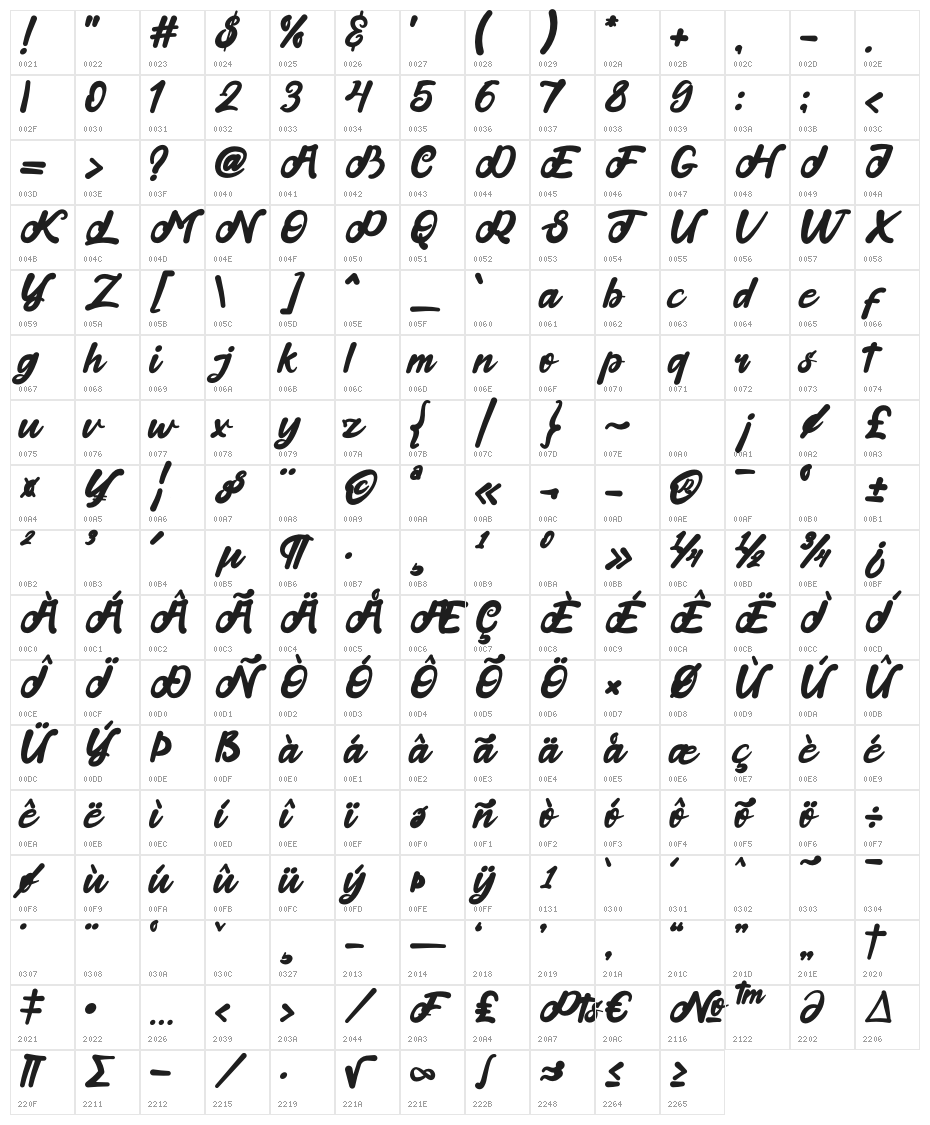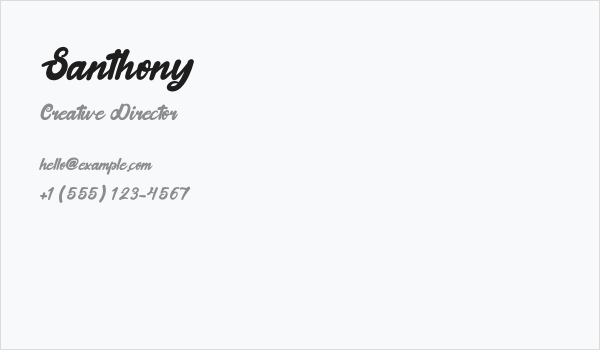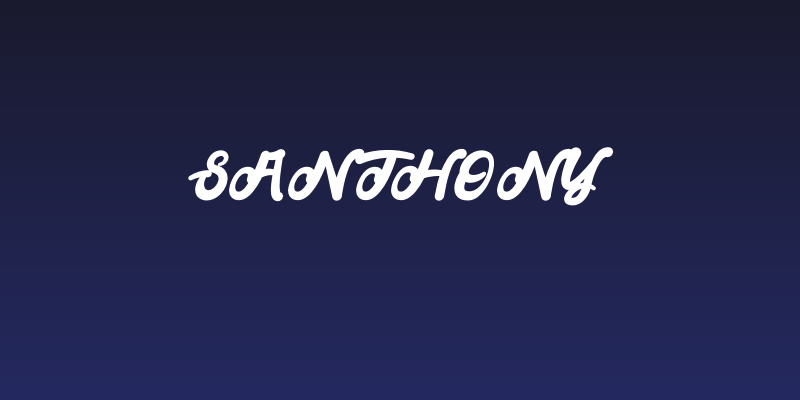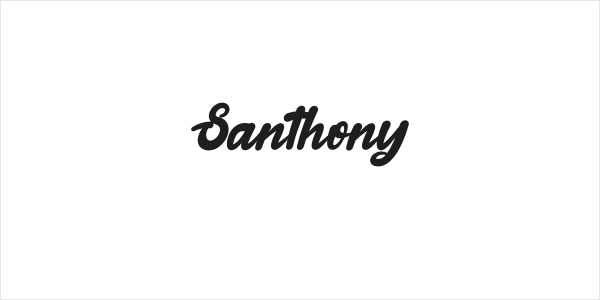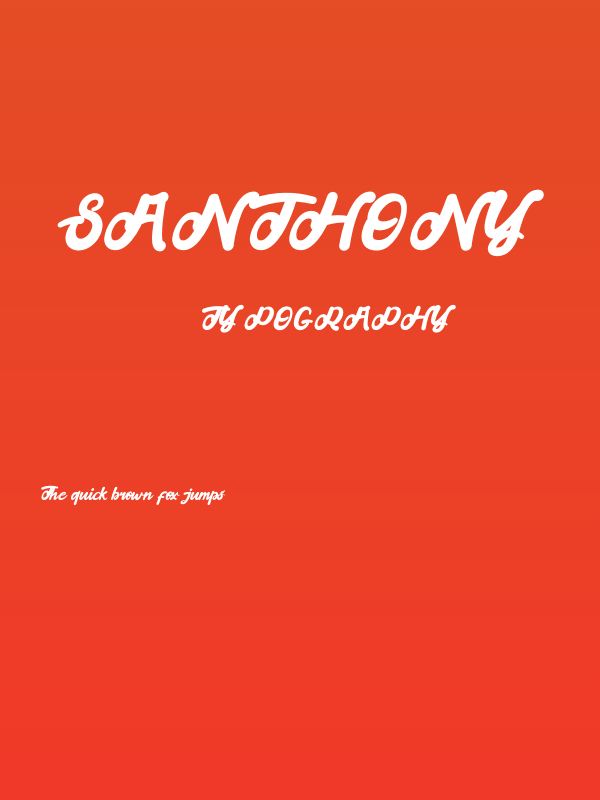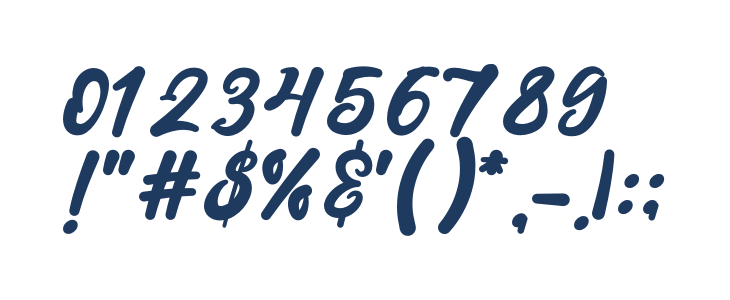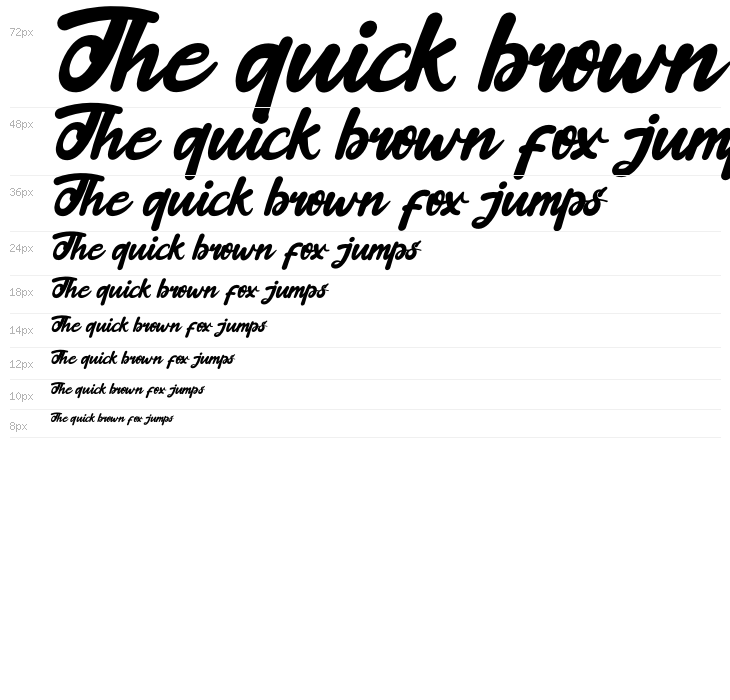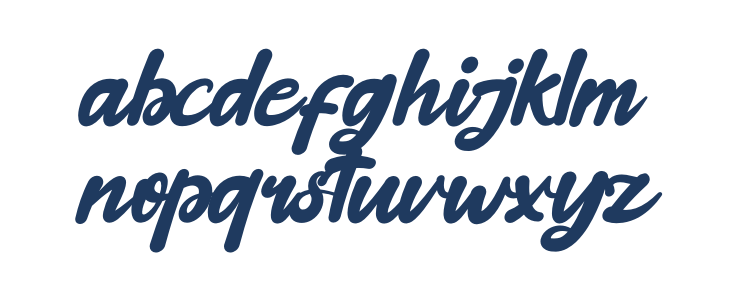
Santhony Font
Santhony Description
This font exhibits a bold, cursive style with a playful and dynamic flow. The uppercase letters are characterized by their looping, interconnected strokes, giving them a sense of movement and energy. The lowercase letters maintain this fluidity, with rounded forms and consistent stroke thickness. Numbers and special characters follow the same stylistic approach, ensuring uniformity across all glyphs. The overall appearance is both modern and expressive, making it suitable for projects that require a touch of personality and flair.
| Proposed Projects | Ideal for branding, invitations, greeting cards, and creative projects that require a personal touch. |